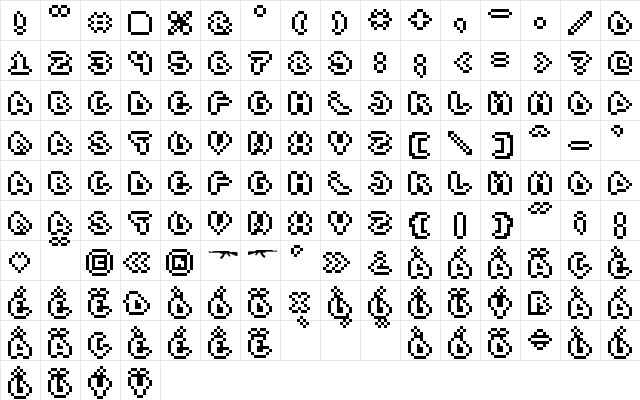
Scienide Outline Regular
Design Context for Scienide Outline Typeface
Scienide Outline brings ornamental detail and strong personality to headlines and identities, where visual impact matters more than quiet functionality.
Font Pairing: Pair with a clean neutral sans-serif for body copy to let Scienide Outline's character lead without overwhelming the composition.
Pro Tip: Use Scienide Outline exclusively at display sizes — it was designed to be seen, not read at length. Let a neutral companion handle body copy.